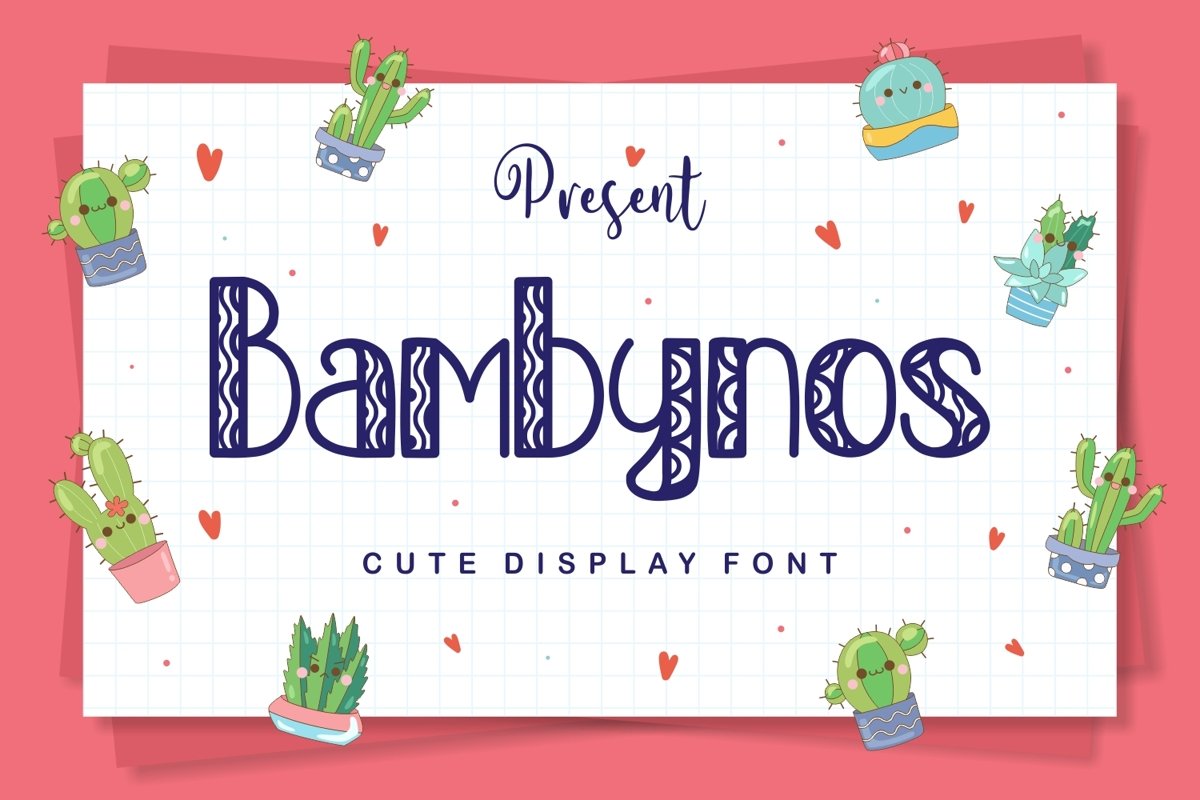
Bambynos is a modern sans serif display come with cute and playful themes. We wanted to create the most decorative characters. The shape of characters have cute pattern. It matches applies in some designs such as the logotype, brand, packaging, quotes, cute poster, kids shirt, cover book, birthday invitation and more custom design. The features uppercase, lowercase, numeral, punctuation & symbol, multilingual support, PUA encoded (fully accessible without additional design software).
Bambynos